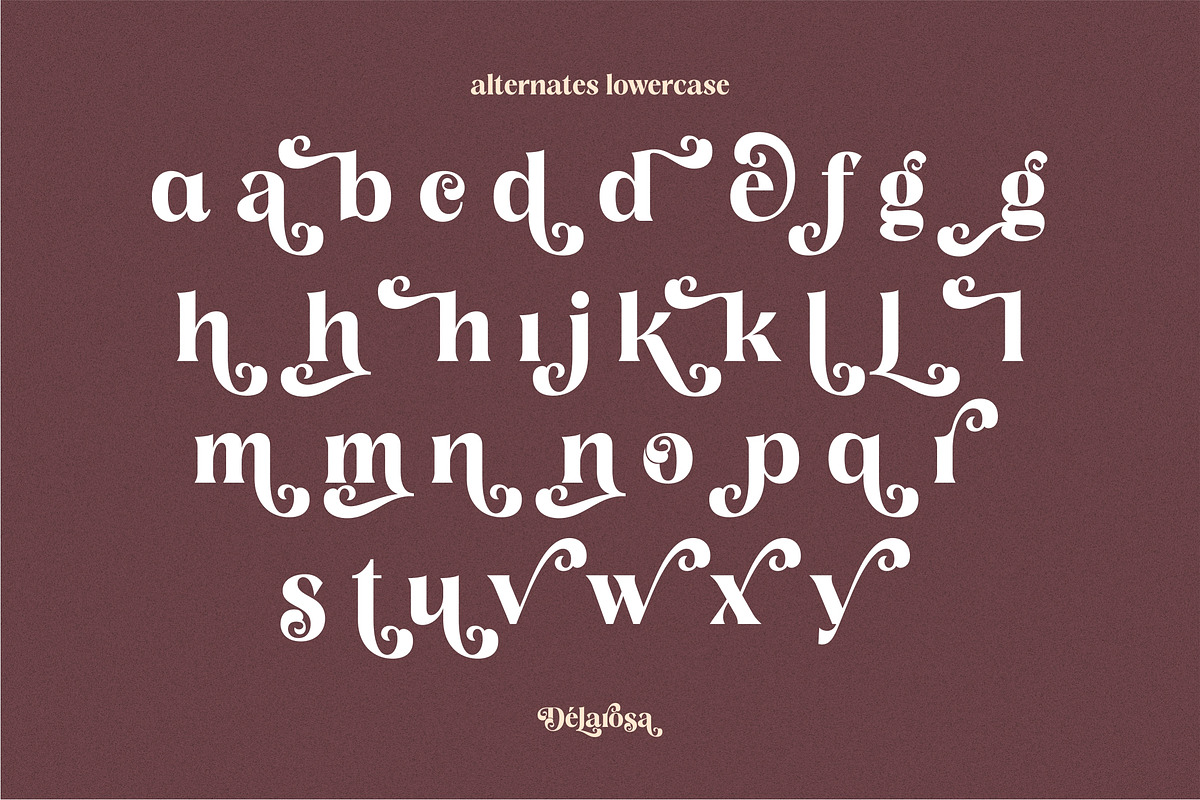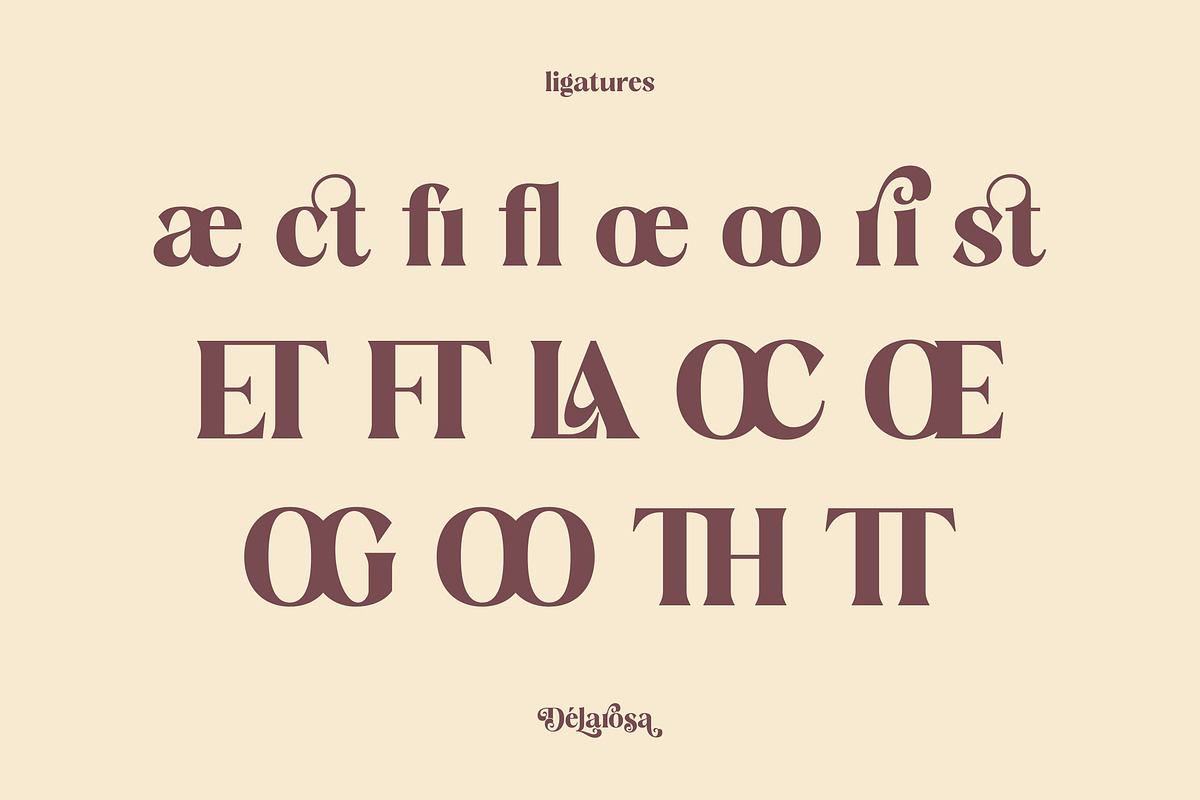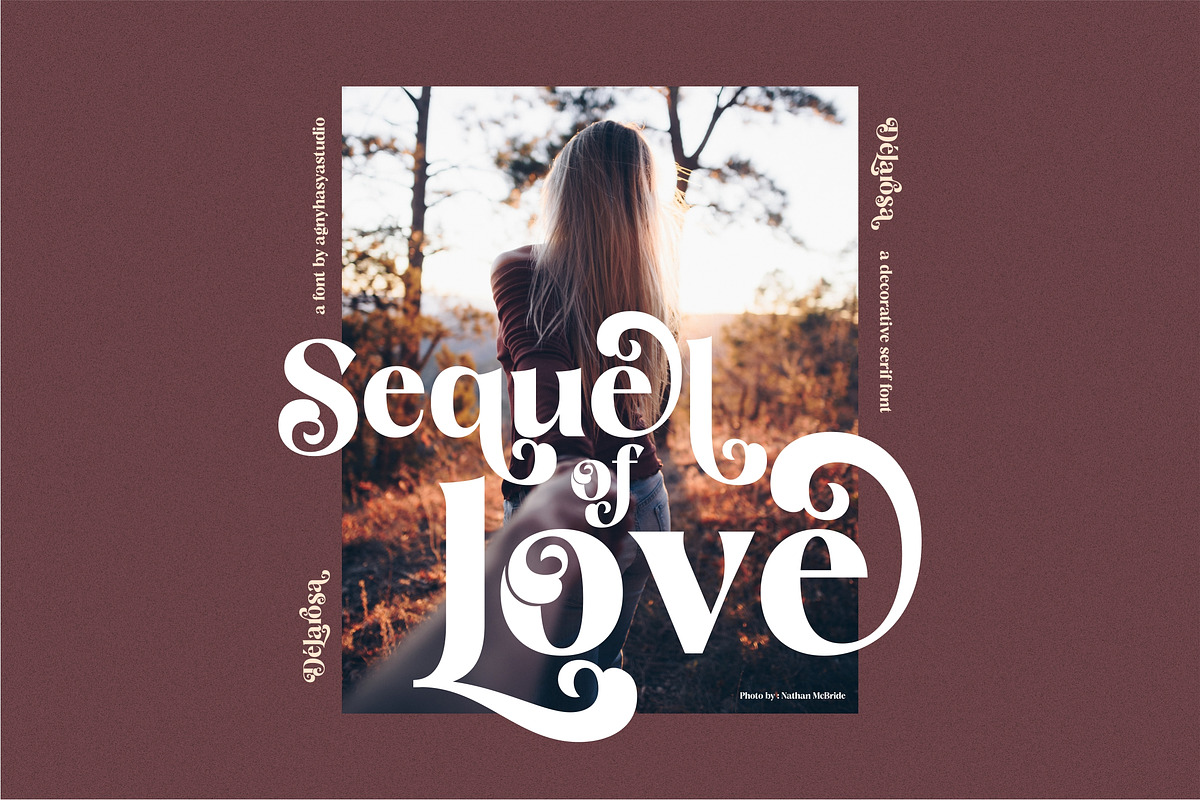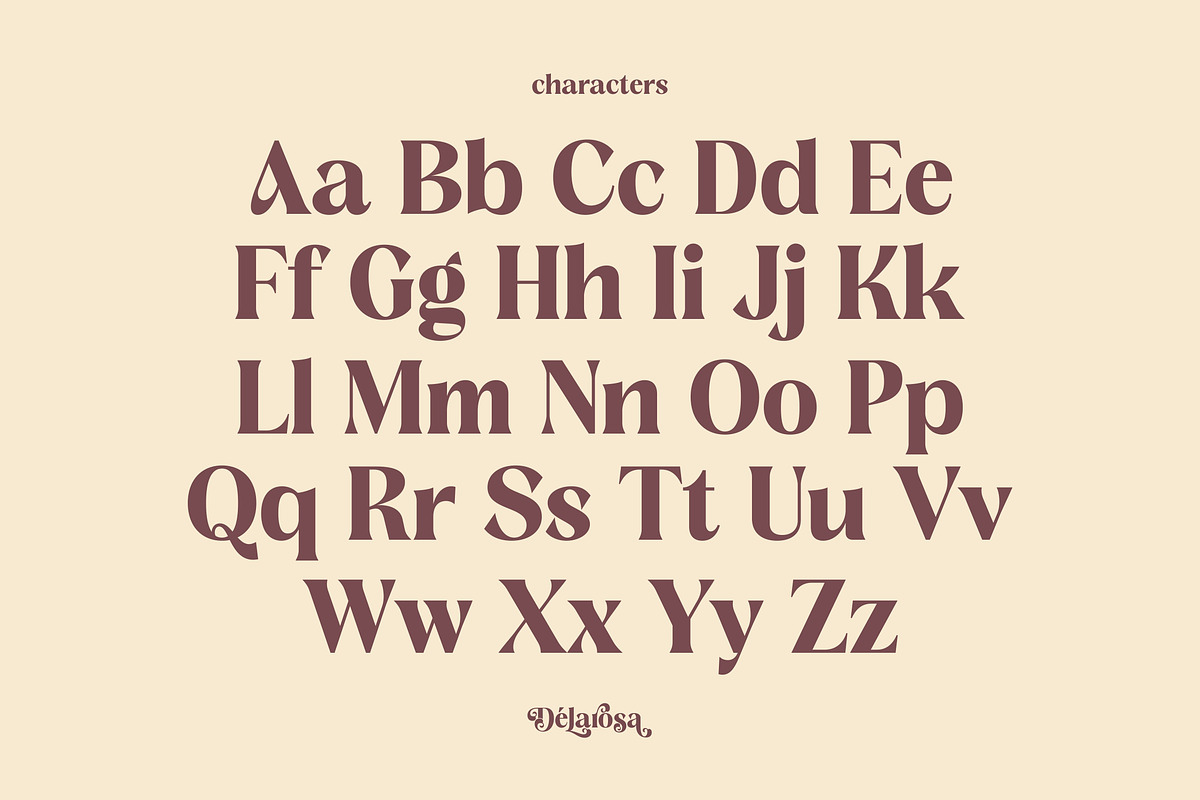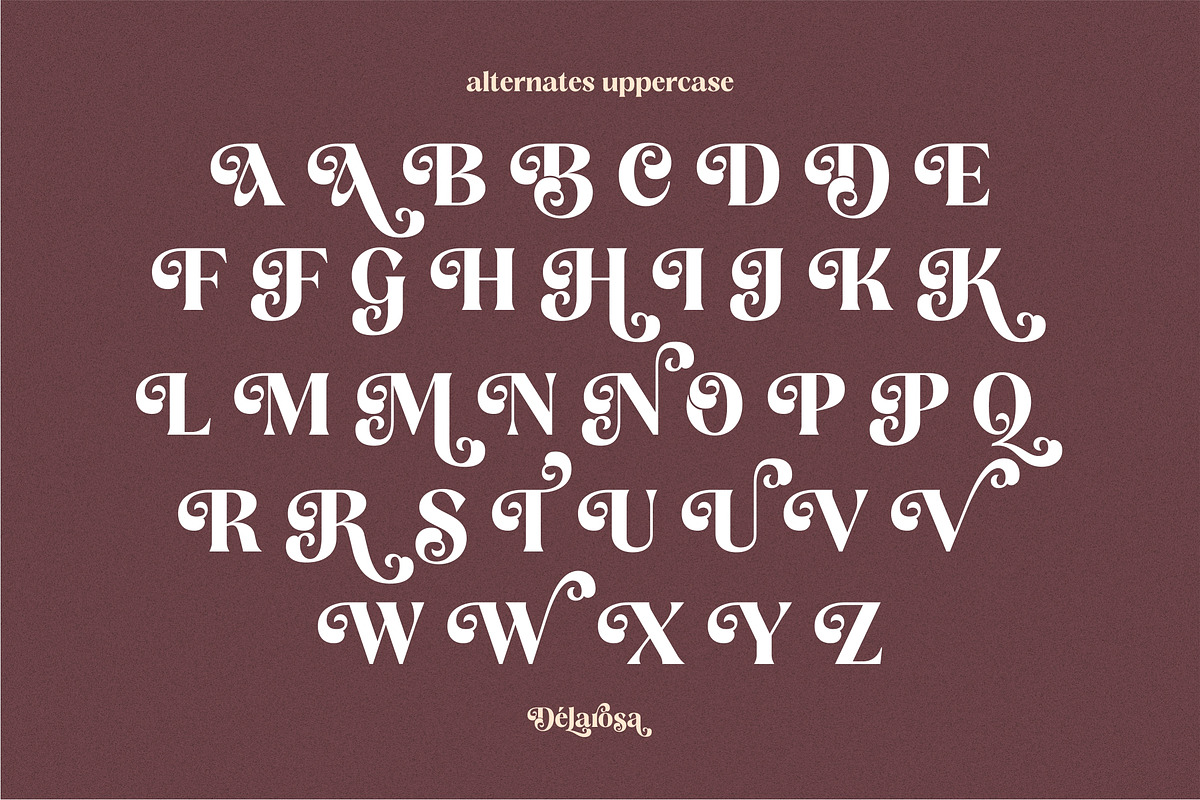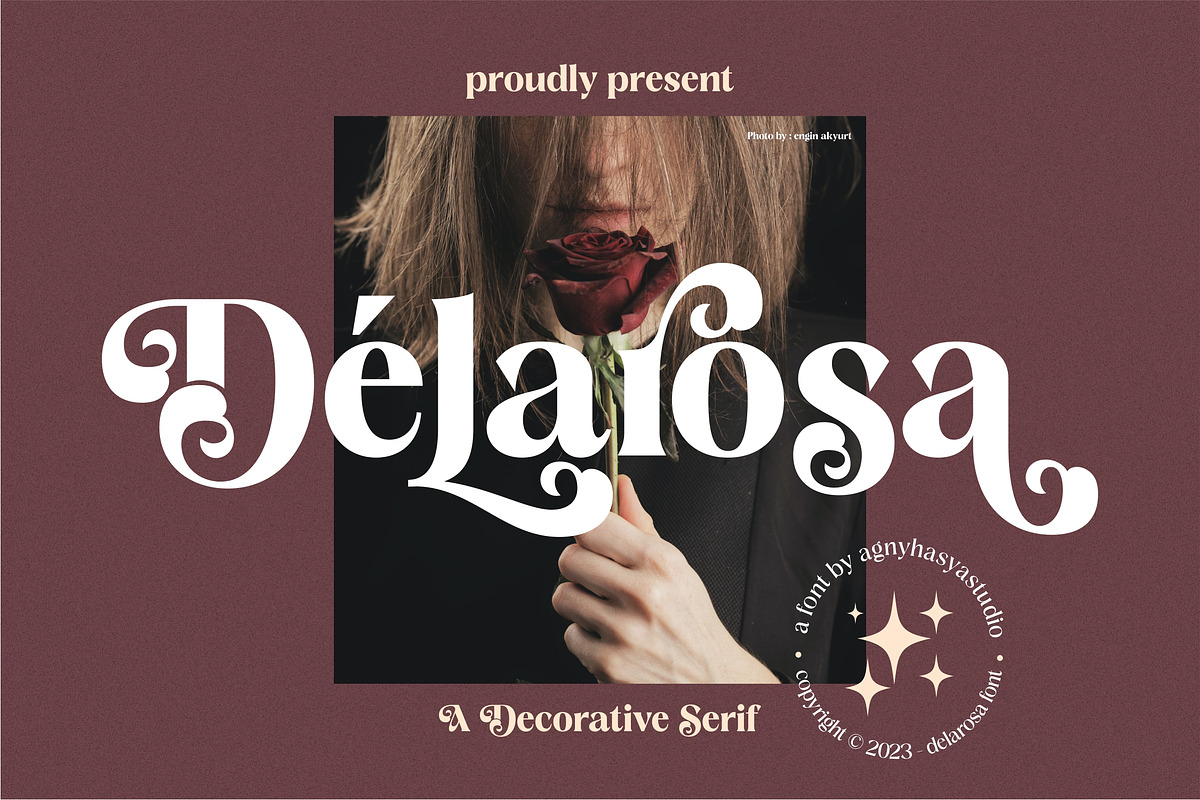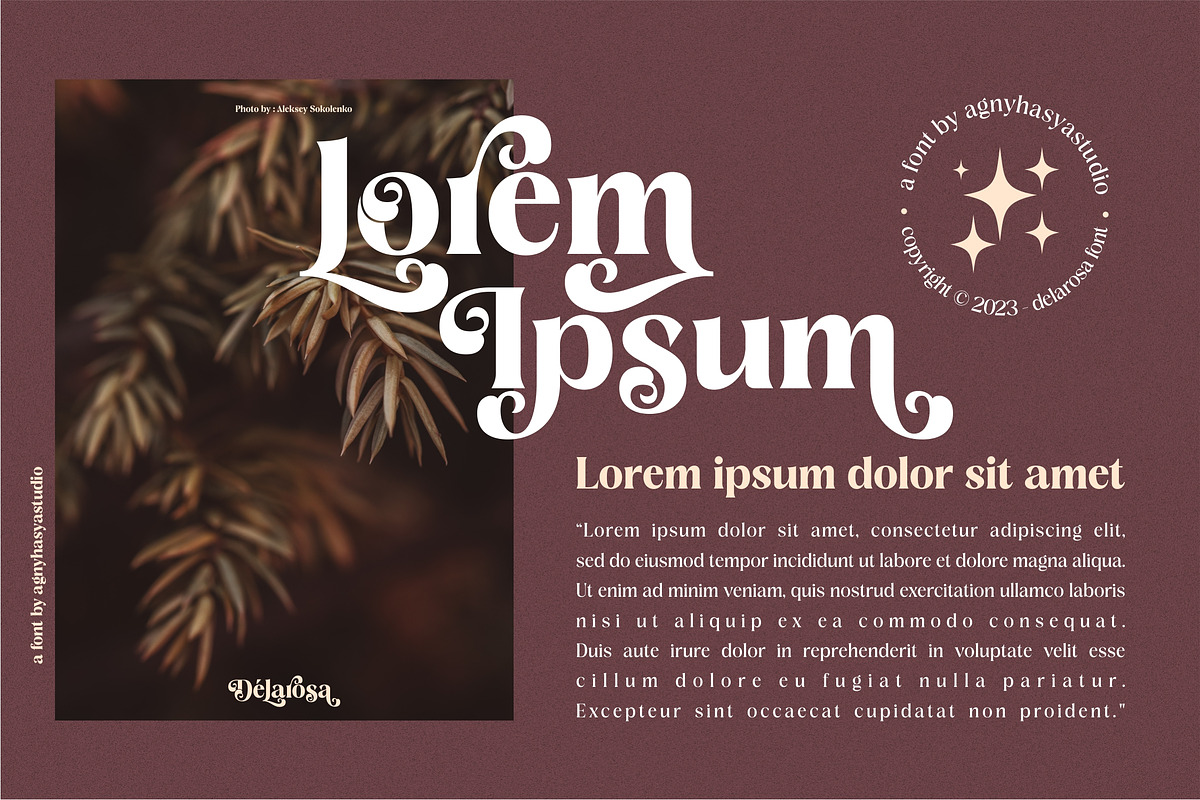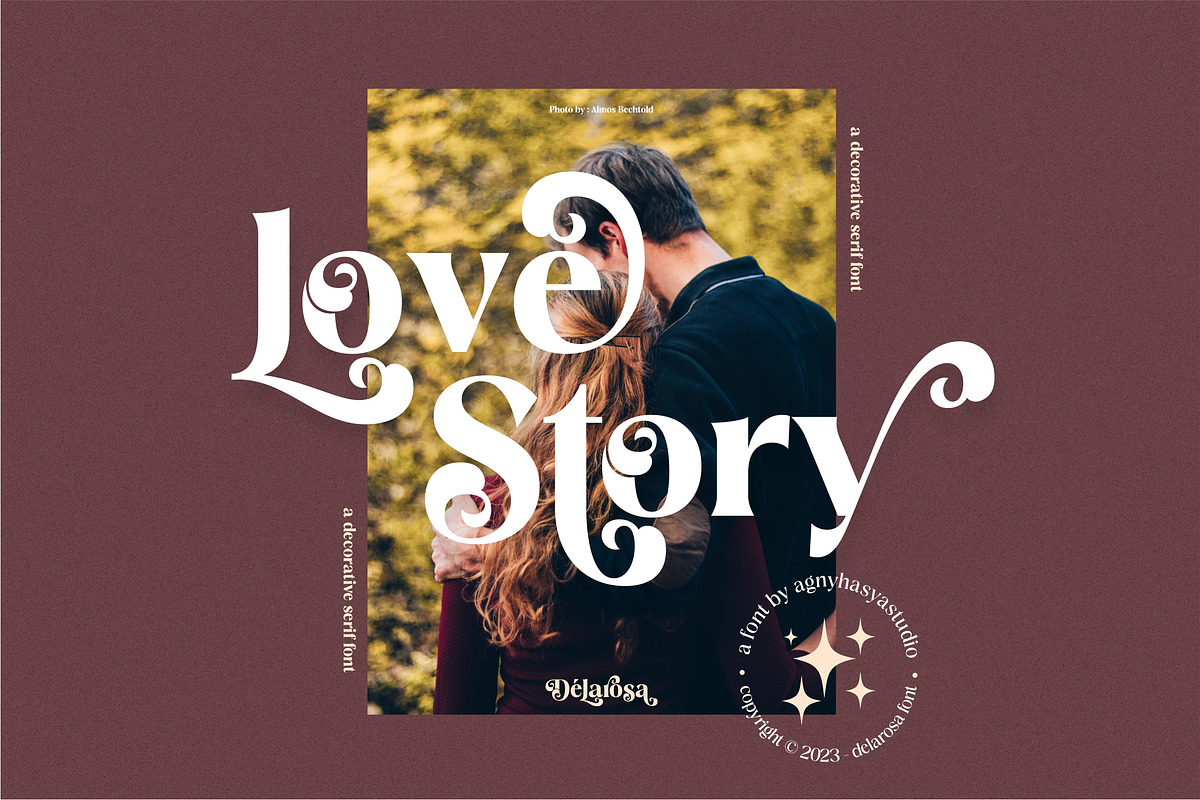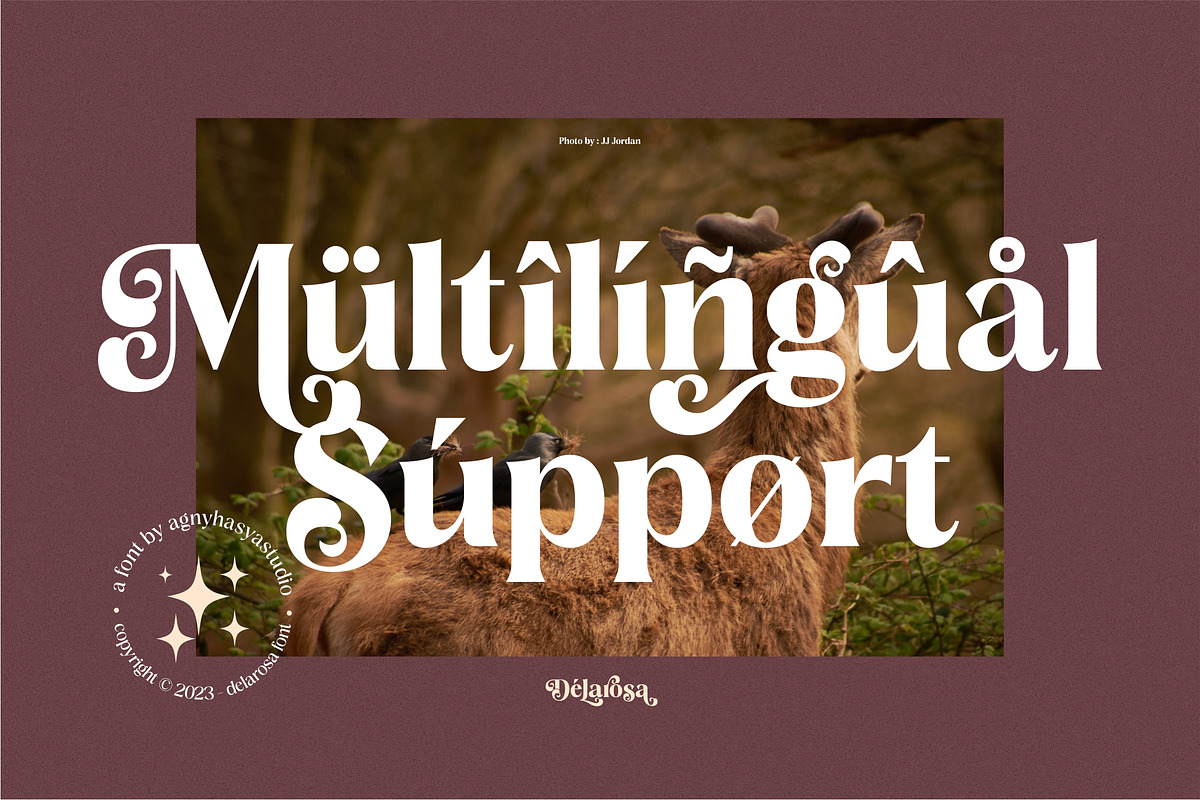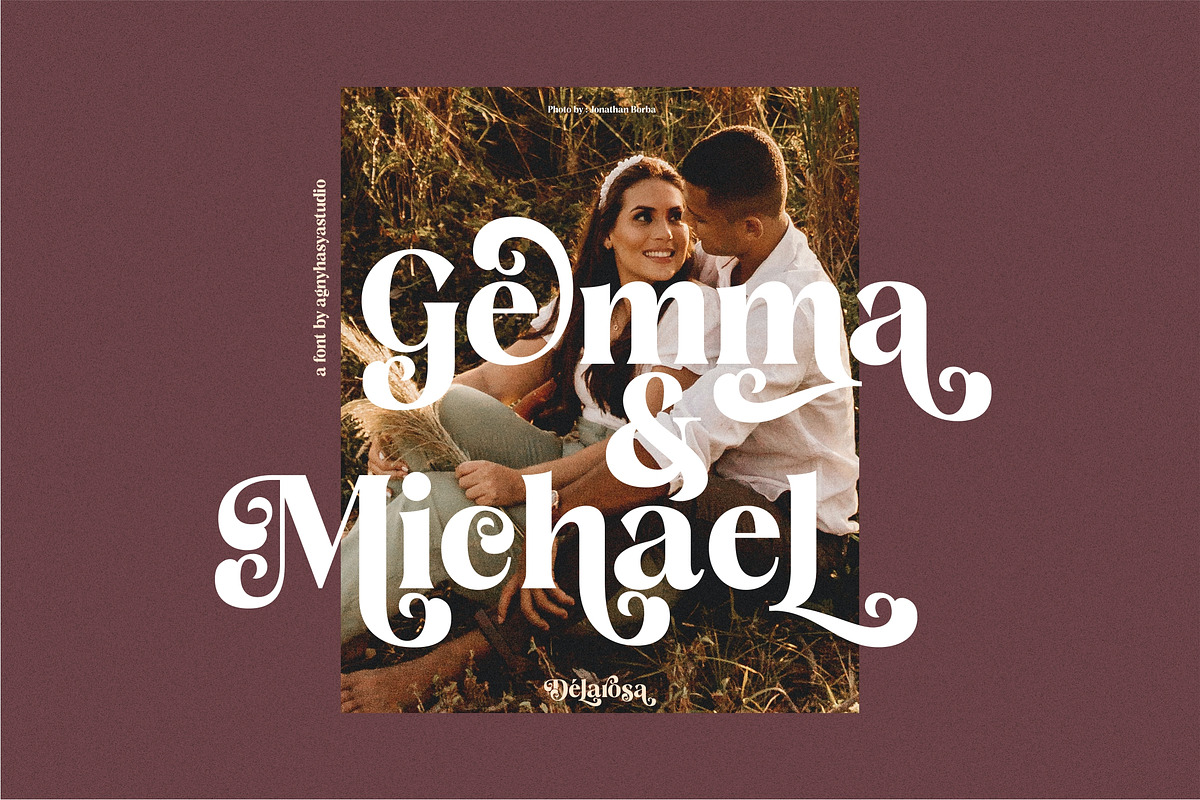
Delarosa - A Decorative Serif
Introducing Delarosa - A Decorative Serif
Delarosa is a Modern Serif Display Font with Retro Vintage Style yet Decorative, and Elegant Come in 2 (two) weights (regular & bold) including slants, and is created with stylistic alternates and ligatures. Combine it and make your perfect typography design!
Perfect for your design projects like logos, branding, advertising, product designs, stationery, magazine designs, book/cover title designs, photography, art quotes, wedding designs, fashion designs, special events, labels, product packaging, and more.